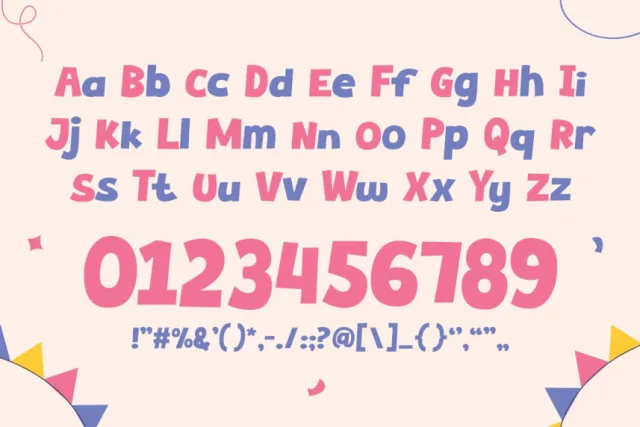
Jigsaw Font is a creative and playful typeface that adds a touch of fun and uniqueness to any design. Inspired by puzzle-like shapes, it brings a sense of creativity and originality that makes every word stand out.
The font features bold, well-crafted characters that capture attention while maintaining a sense of balance and readability.
This font is perfect for posters, event invitations, children’s projects, branding, packaging, and other creative designs where a lively and distinctive style is needed.
Its artistic appearance makes it suitable for both digital and print use, giving designers endless possibilities to experiment with different layouts.
Jigsaw Font Family
| Name | Jigsaw Font |
| Type | Display / Decorative |
| Suitable For | Children’s Books, Posters, Event Graphics, Packaging, Creative Titles |
| Font Style | Playful, Bold, Artistic |
| Special Feature | Puzzle-Inspired Character Design for Creative Projects |
One of the best things about Jigsaw Font is its versatility. Whether you are creating a bold headline, a decorative title, or a themed graphic, this typeface adds charm and creativity without sacrificing clarity. Its strong presence ensures that your designs leave a lasting impression.